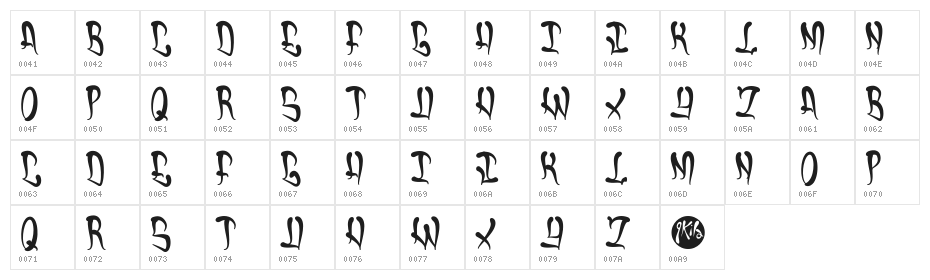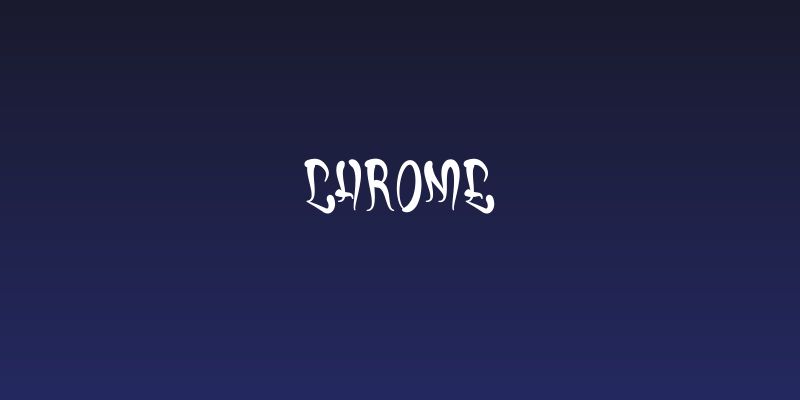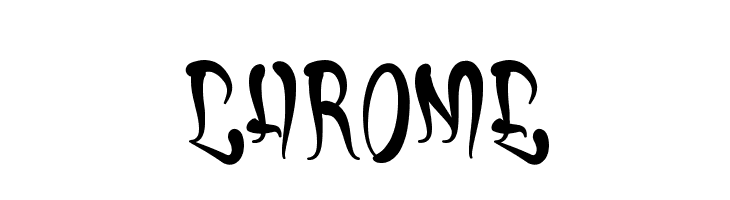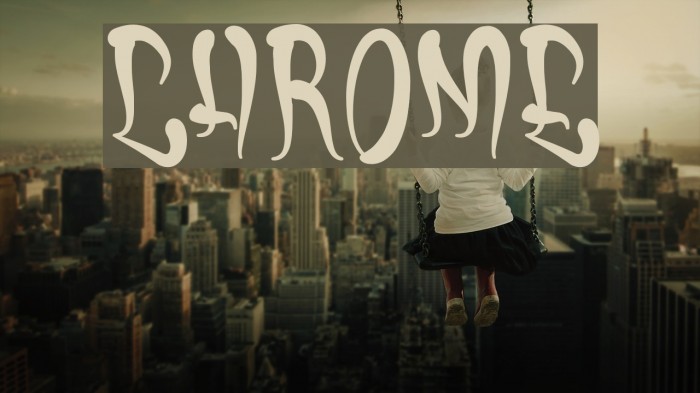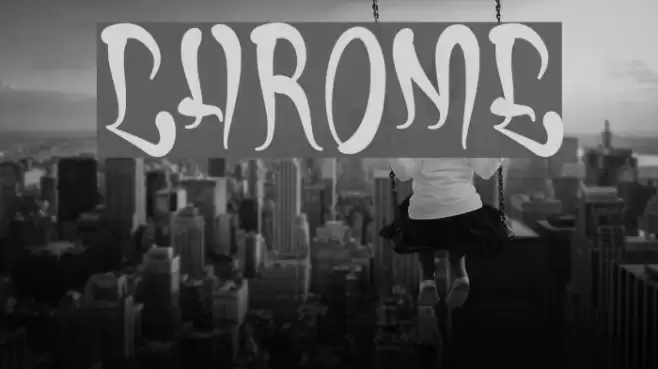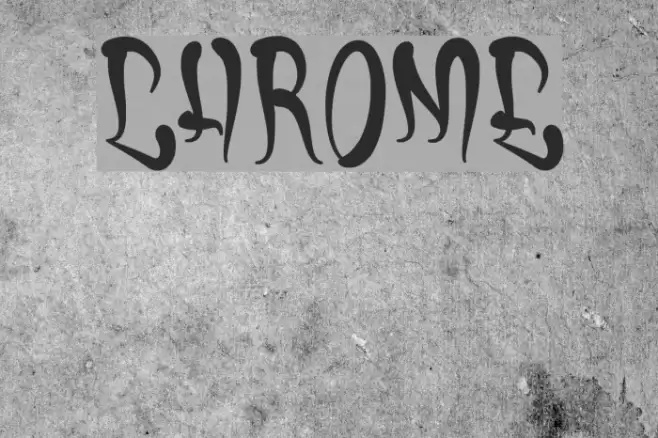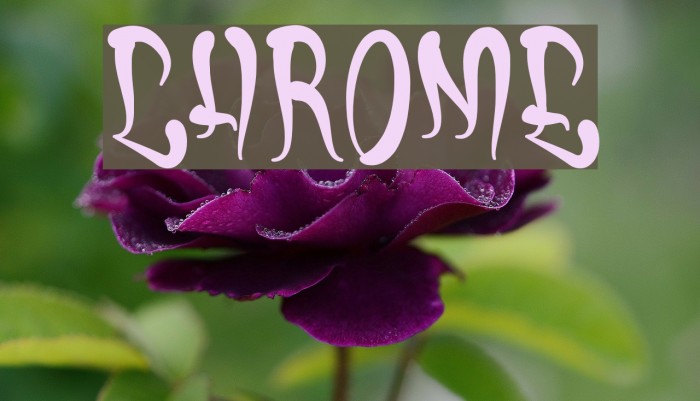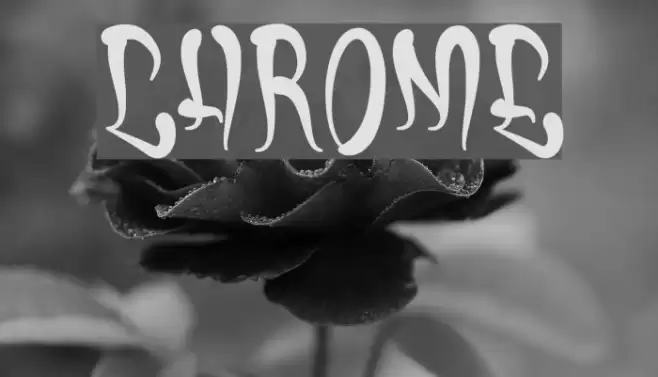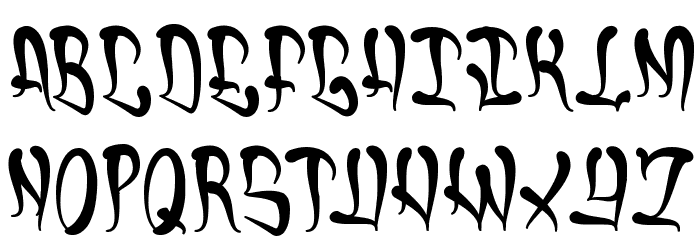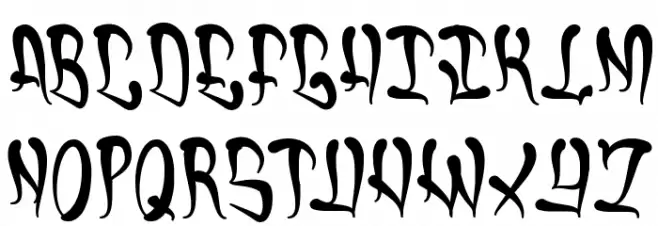
Chrome Font
✎ Graffiti
| Anwendungsfall | Headlines, Logos, Artistic projects |
| Vorgeschlagene Projekte | Ideal for artistic projects, decorative headings, event invitations, and branding that requires a unique and expressive touch. |